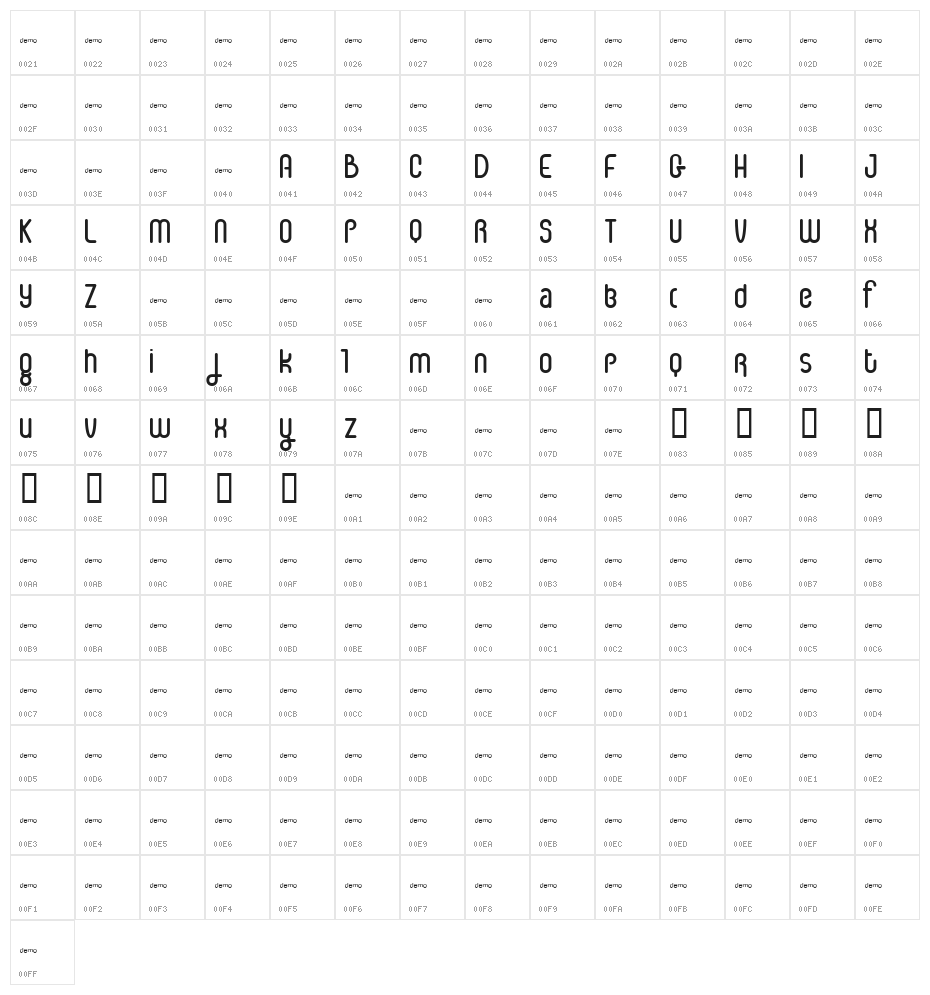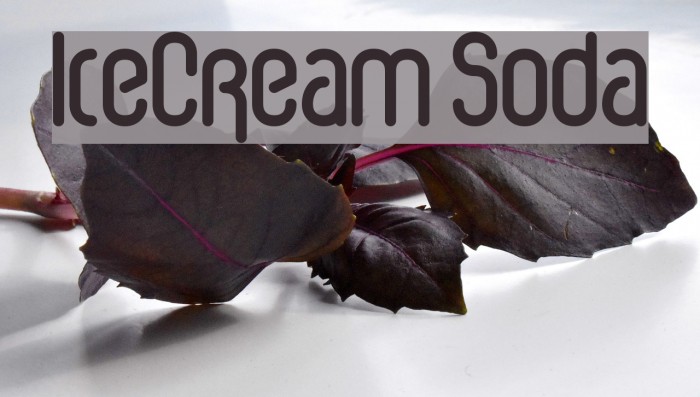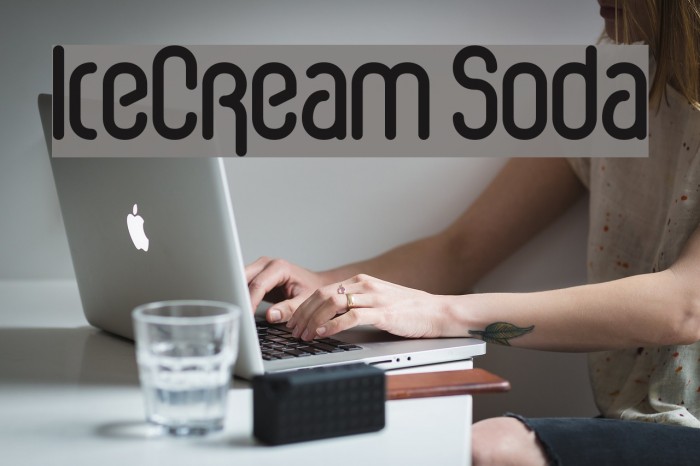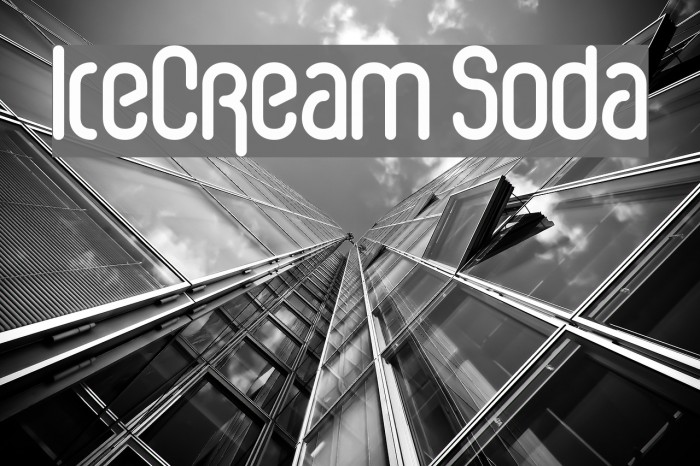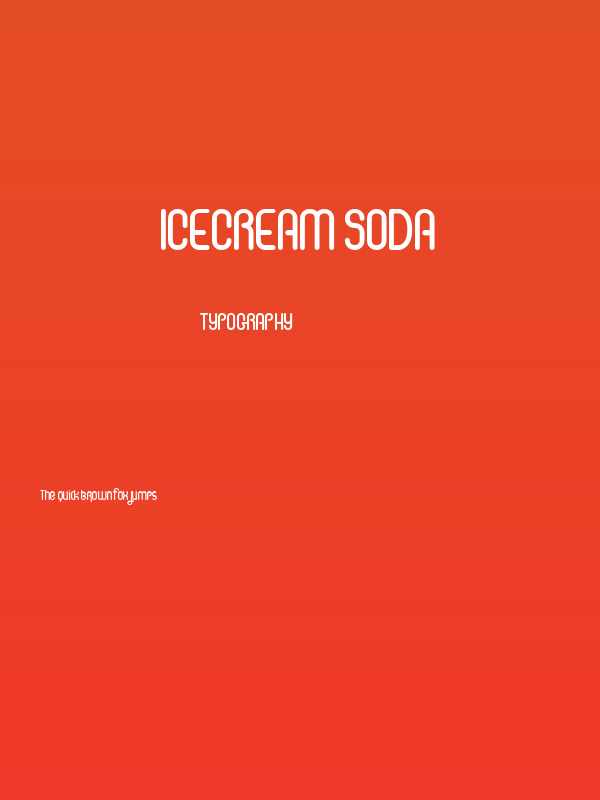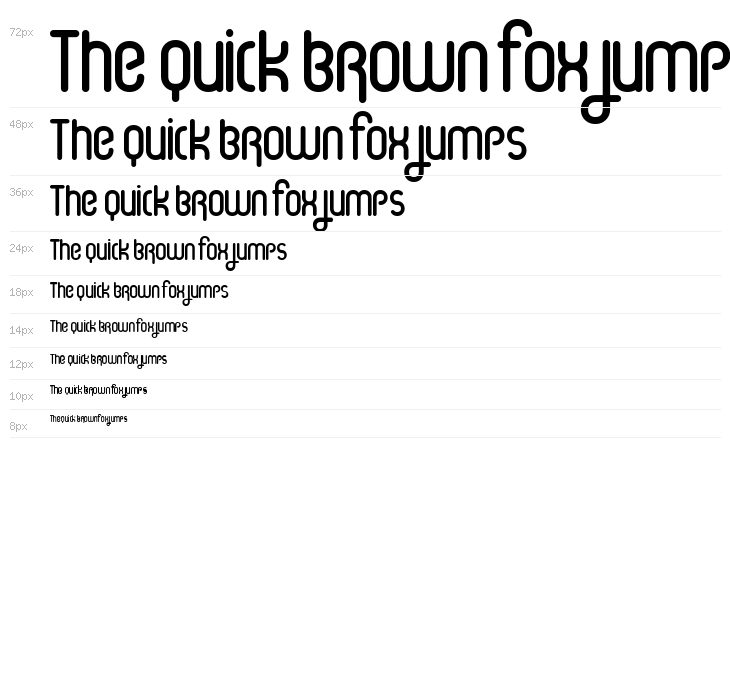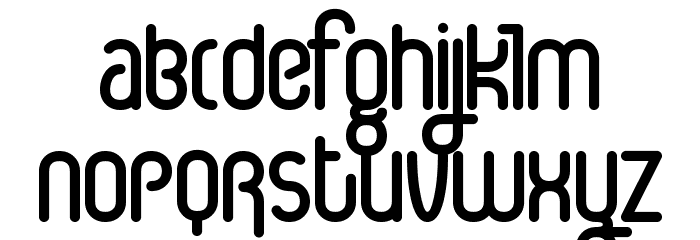
IceCream Soda Font
IceCream Soda Description
This font features a playful and rounded design, characterized by its smooth curves and uniform stroke width. The letters are bold and have a consistent thickness, giving them a modern and approachable appearance. The uppercase and lowercase letters maintain a cohesive style, with rounded edges and a slightly condensed form. The numbers and special characters follow the same design principles, ensuring a harmonious look across all glyphs. This font's unique style makes it stand out, while still being legible and versatile for various applications.